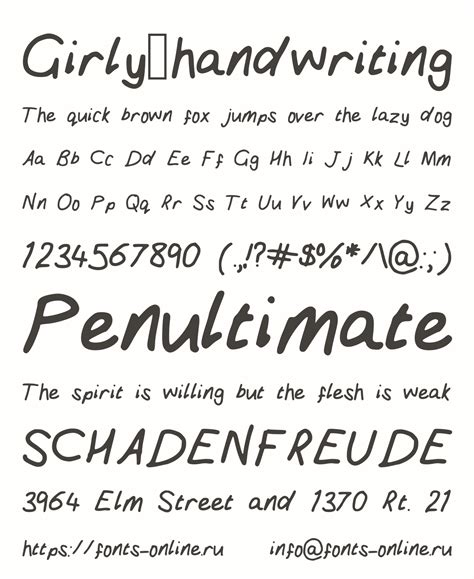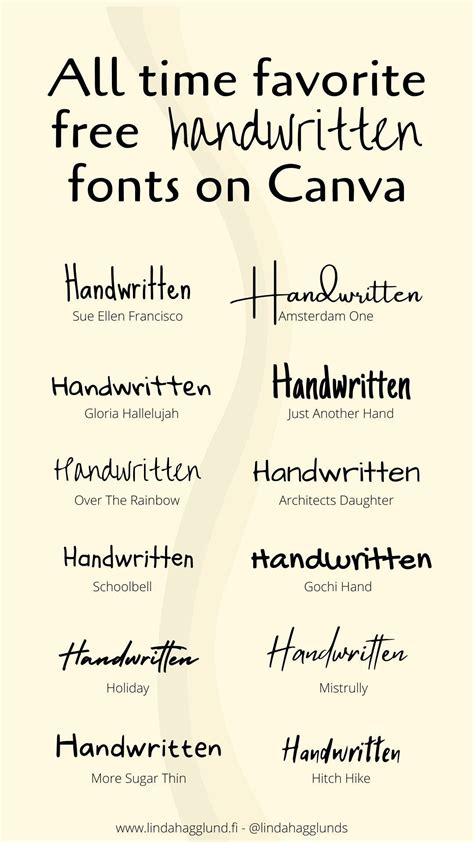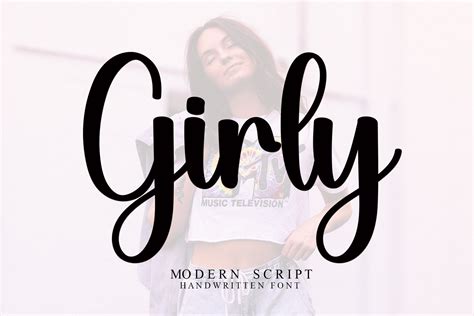
In the digital age, where screens dominate our visual landscape, there's something uniquely charming about the tactile and personal touch of handwritten notes. This charm is amplified when the handwriting is not just legible but also aesthetically pleasing. Cute handwriting fonts have gained significant popularity, bridging the gap between digital convenience and the warmth of handwritten communication. These fonts are not just about aesthetics; they evoke a sense of nostalgia and personal connection that is hard to replicate with standard digital text.
The Appeal of Cute Handwriting Fonts
Cute handwriting fonts are more than just a design choice; they are a statement of personality and creativity. Whether you're designing a greeting card, creating a social media post, or crafting a personal blog, these fonts add a layer of warmth and approachability. They are particularly popular among artists, designers, and anyone looking to add a personal touch to their digital content.
One of the primary reasons for the appeal of cute handwriting fonts is their ability to convey emotion. The playful, whimsical nature of these fonts can make even the most mundane text feel special. They are often used in children's books, educational materials, and any content aimed at evoking a sense of joy and innocence.
Types of Cute Handwriting Fonts
Cute handwriting fonts come in a variety of styles, each with its unique charm. Here are some of the most popular types:
- Script Fonts: These fonts mimic the flow of handwritten script, often with loops and flourishes that add a touch of elegance.
- Cursive Fonts: Similar to script fonts, cursive fonts are characterized by their connected letters, giving a sense of continuous flow.
- Brush Fonts: These fonts mimic the look of brush strokes, adding a textured, hand-painted feel to the text.
- Chalkboard Fonts: Inspired by chalk writing on a blackboard, these fonts have a rustic, playful appeal.
- Bubble Fonts: These fonts feature rounded, bubble-like letters, giving a fun and childlike appearance.
Where to Use Cute Handwriting Fonts
Cute handwriting fonts are incredibly versatile and can be used in a wide range of applications. Here are some popular uses:
- Greeting Cards and Invitations: Add a personal touch to your invitations and greeting cards with cute handwriting fonts.
- Social Media Posts: Make your social media content stand out with fonts that are both visually appealing and emotionally resonant.
- Blogs and Websites: Use these fonts for headings, quotes, or special sections to make your content more engaging.
- Educational Materials: Make learning fun with fonts that are easy on the eyes and add a playful element to educational content.
- Personal Projects: Whether it's a DIY craft, a scrapbook, or a personal journal, cute handwriting fonts can enhance the overall aesthetic.
How to Choose the Right Cute Handwriting Font
Choosing the right cute handwriting font depends on the context and the message you want to convey. Here are some tips to help you make the right choice:
- Consider the Tone: Different fonts convey different tones. For example, a script font might be more formal, while a bubble font is more playful.
- Legibility: Ensure that the font is easy to read, especially if it's being used for a large body of text.
- Aesthetic Compatibility: Choose a font that complements the overall design and color scheme of your project.
- Purpose: Think about the purpose of your content. For example, a font that works well for a children's book might not be suitable for a professional presentation.
Here is a table to help you understand the different types of cute handwriting fonts and their best uses:
| Font Type | Characteristics | Best Uses |
|---|---|---|
| Script Fonts | Flowing, elegant, with loops and flourishes | Weddings, formal invitations, elegant designs |
| Cursive Fonts | Connected letters, continuous flow | Personal letters, journals, casual invitations |
| Brush Fonts | Textured, hand-painted look | Artistic projects, handmade crafts, creative designs |
| Chalkboard Fonts | Rustic, playful, chalk-like appearance | Educational materials, children's books, casual designs |
| Bubble Fonts | Rounded, childlike appearance | Children's books, playful designs, casual invitations |
π Note: Always preview the font in the context of your project to ensure it meets your design and readability requirements.
Creating Your Own Cute Handwriting Font
If you're feeling creative, you can even design your own cute handwriting font. This process involves several steps, from sketching to digitizing your design. Here's a basic guide to get you started:
- Sketch Your Design: Start by sketching your font design on paper. Experiment with different styles and letterforms until you find one that you like.
- Digitize Your Sketch: Use a graphic design tool like Adobe Illustrator or Inkscape to trace and refine your sketch. This step involves converting your hand-drawn letters into digital vectors.